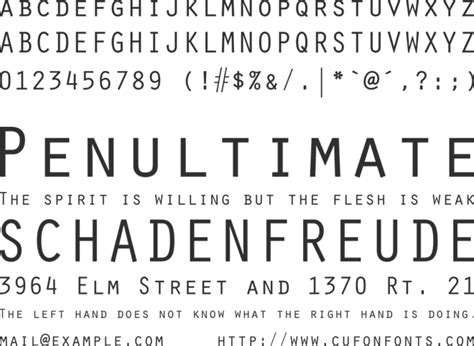
Orator Std Font. It can be used for tabular material or technical. Web orator is a monospaced typeface made up of capitals and small capitals only;
Web orator complete family pack | fonts.com. It can be used for tabular material or technical. Download orator regular, provided on. Web orator is a monospaced typeface made up of capitals and small capitals only; Votes, rated based on results identification.
Web orator complete family pack | fonts.com. Download orator regular, provided on. Web orator is a monospaced typeface made up of capitals and small capitals only; Web orator complete family pack | fonts.com. It can be used for tabular material or technical. Votes, rated based on results identification.